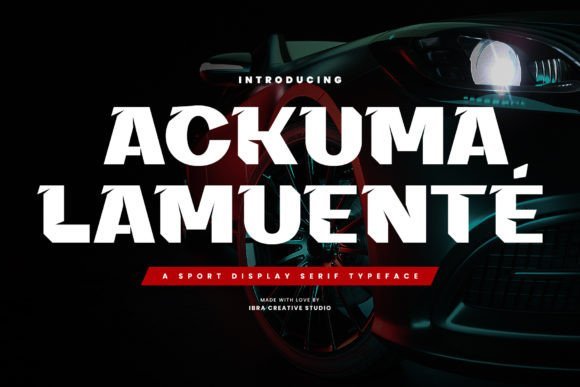
Introduction to Ackuma Lamuenté Font
Ackuma Lamuenté is a striking Sport Display Serif typeface that seamlessly merges classic elegance with a bold, contemporary flair.
The typeface’s distinctive characteristics are evident in its sharp, angular serifs and dynamic letterforms, exuding a sense of strength and athleticism Ackuma Lamuenté balances a refined aesthetic with a robust presence, making it an ideal choice for sports-related designs, branding, and editorial layouts.
Key Features of Ackuma Lamuenté Font
Why Choose Ackuma Lamuenté Font?